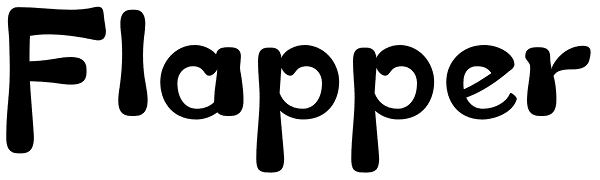
Flapper
Flapper is family of four typefaces which embody a great deal of fun and more than a little spirit of the roaring 20s. If ever a set of typefaces could dance a high kicking Charleston, these are they. Flapper is offered in regular, condensed...
Flapper
Flapper Oblique
Flapper Outline
Flapper Condensed